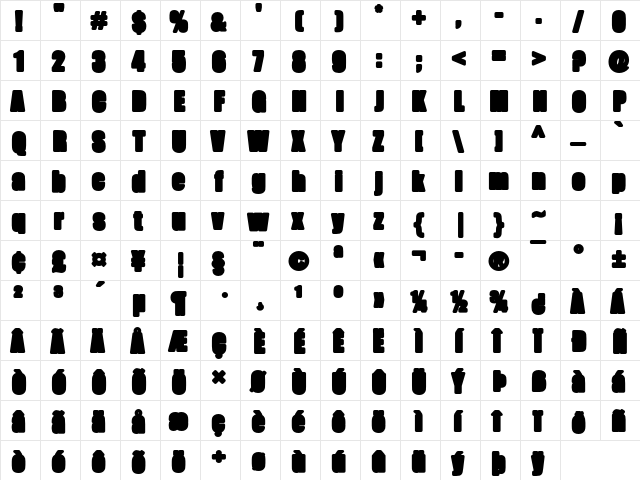
Fatman Bold Font Preview
Fatman Bold
Fatman Bold Font Details
| Foundry | Hardisco Inc. |
Design Context for Fatman Typeface
Fatman offers clean, dependable letterforms without strong stylistic allegiance, making it a practical choice for designers who need flexibility. Its bold stroke weight gives it real presence on the page.